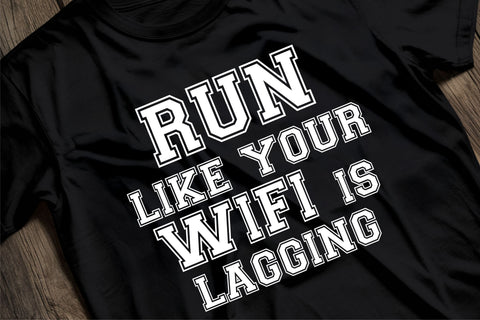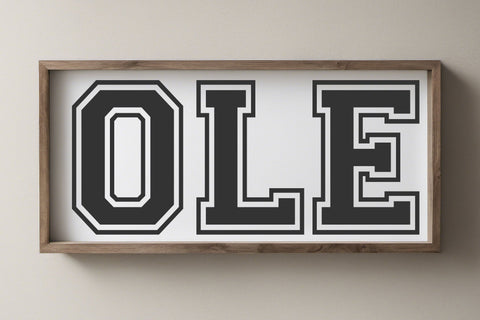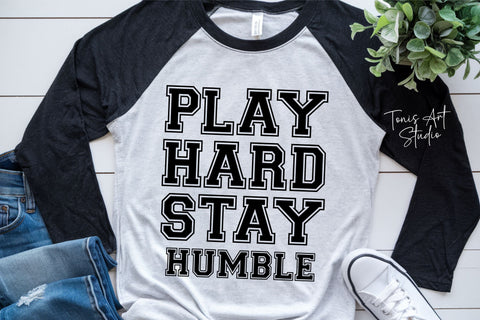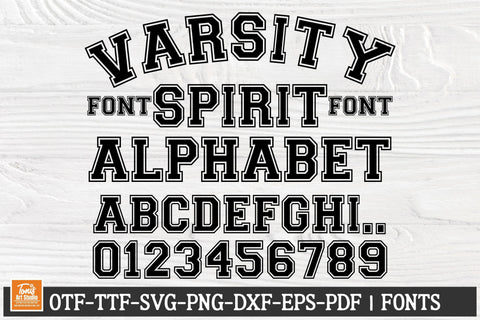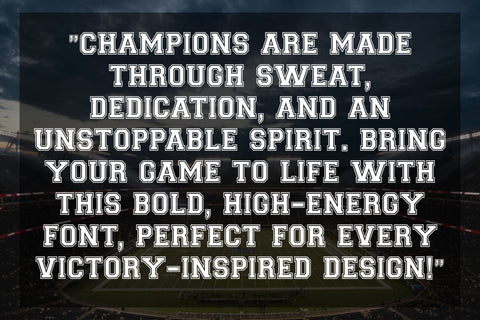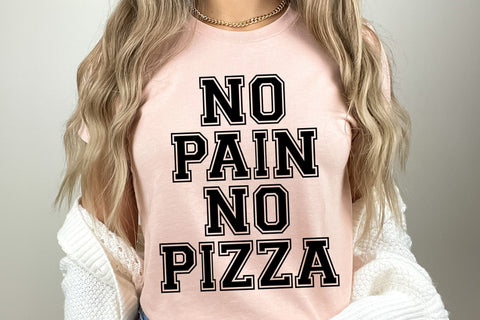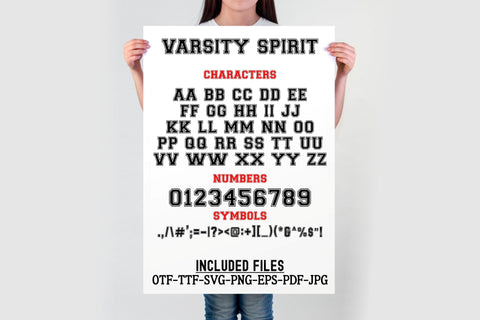
Varsity Font SVG, College Alphabet, Monogram SVG, Sports Font, Varsity Letters, Cricut Font, OTF TTF Typeface
Varsity Font SVG with bold varsity letters, perfect for college alphabet projects, monogram SVGs, and sports font designs. Includes OTF, TTF, SVG, PNG, EPS, and PDF files. Ideal for Cricut projects, school spirit designs, jerseys, and athletic themes. This varsity typeface is great for cutting machines, graphic design, team logos, and custom DIY projects. Compatible with Adobe Illustrator, Photoshop, Canva, and more.
✔ College Distressed Font – Bold, vintage college-style typeface
✔ Full Alphabet (A-Z), Numbers, and Symbols
Perfect For:
🏛 Vintage College Graphics
🔥 Distressed Logos & Branding
👕 T-Shirts, Hoodies & Merchandise
🎨 Cricut & Silhouette Projects
📢 Posters, Stickers & Decals
🛠 Sublimation, Screen Printing & DIY Crafts